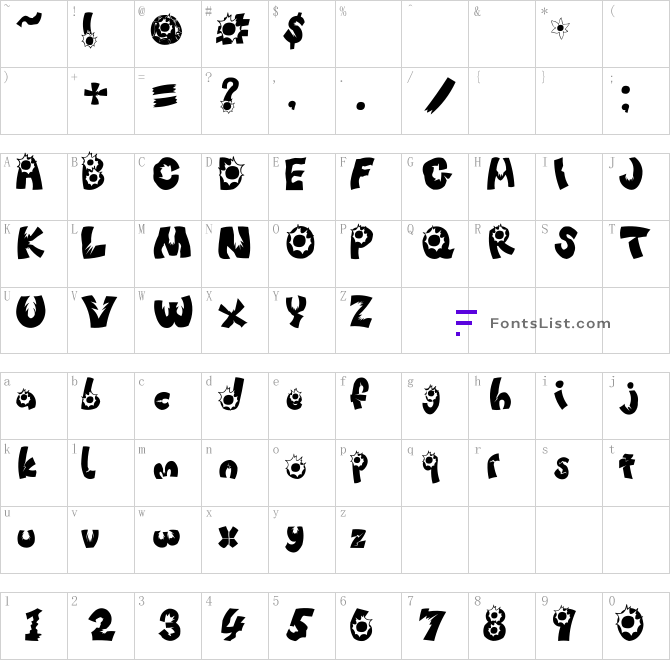
After_Attack.ttf is a very beautiful artistic font, After_Attack.ttf is widely used in the design and printing of various books and pictures,After_Attack.ttf has a strong visual impact,After_Attack.ttf is a commonly used font in newspapers, magazines and books, and is used in posters, e-commerce Poster design, store design, logo design, font design and other fields.After_Attack.